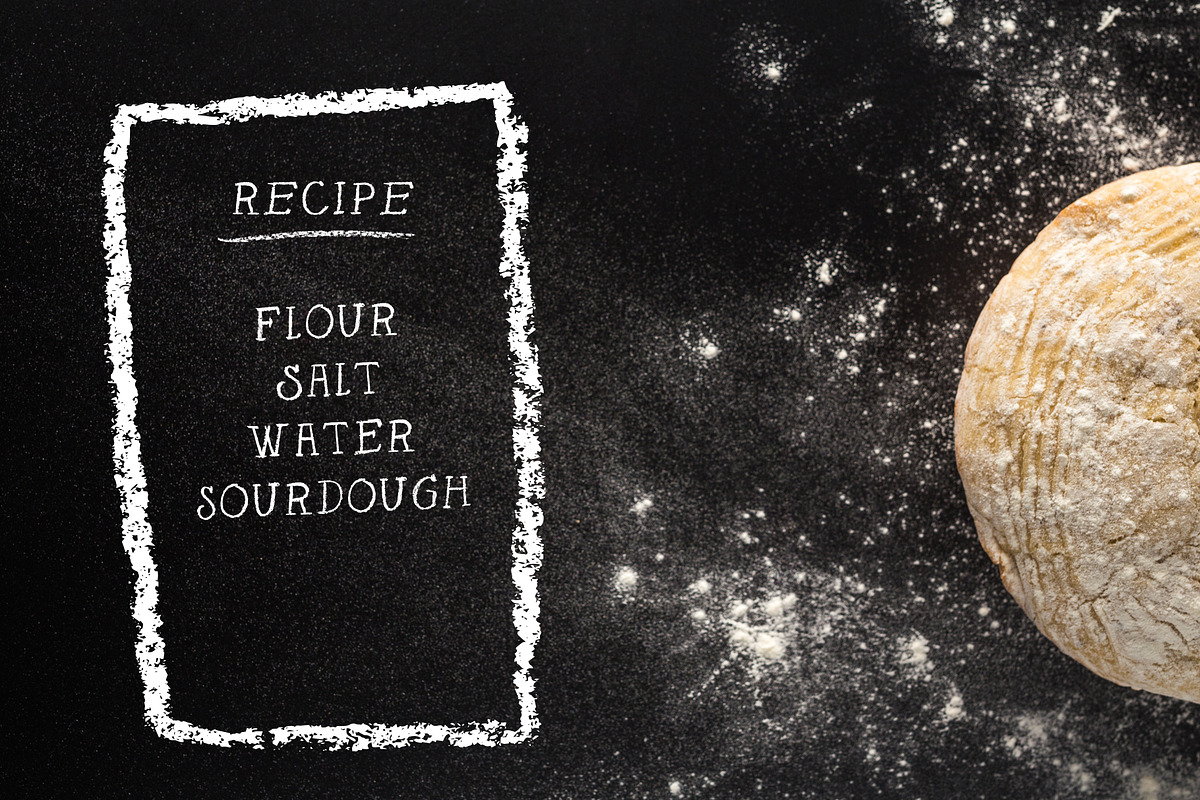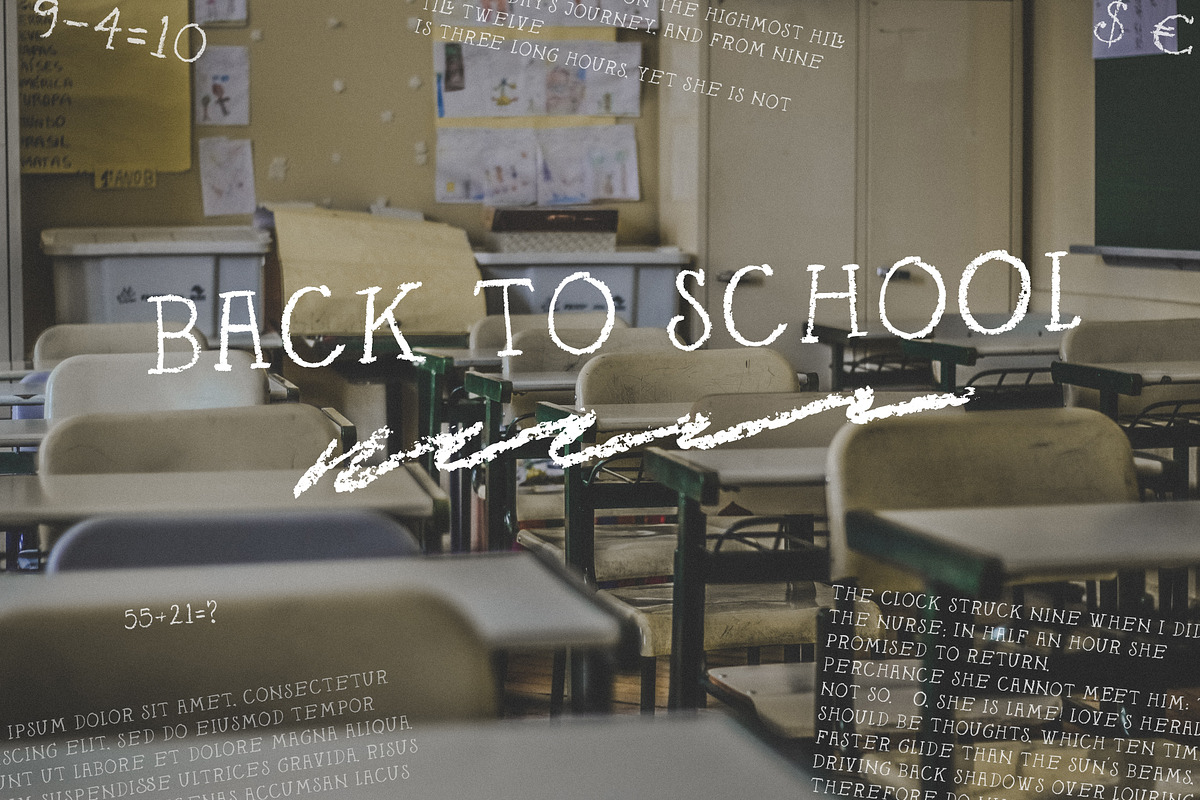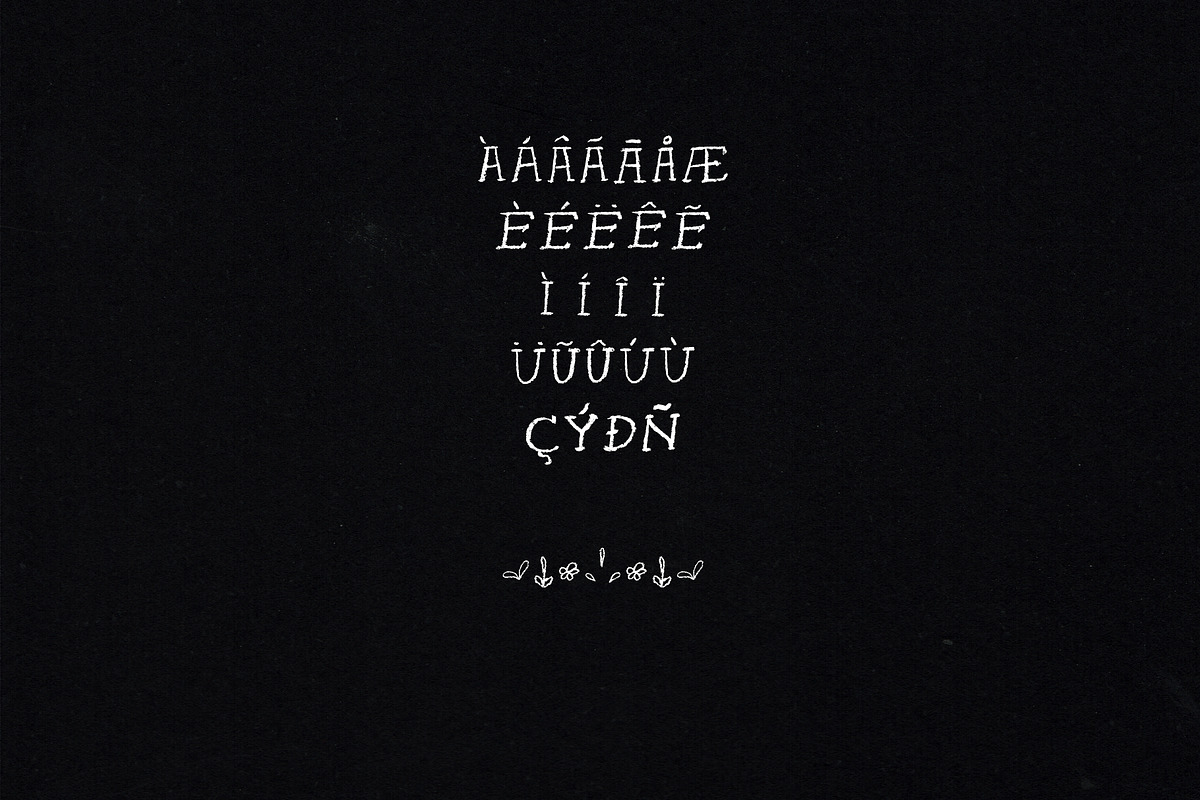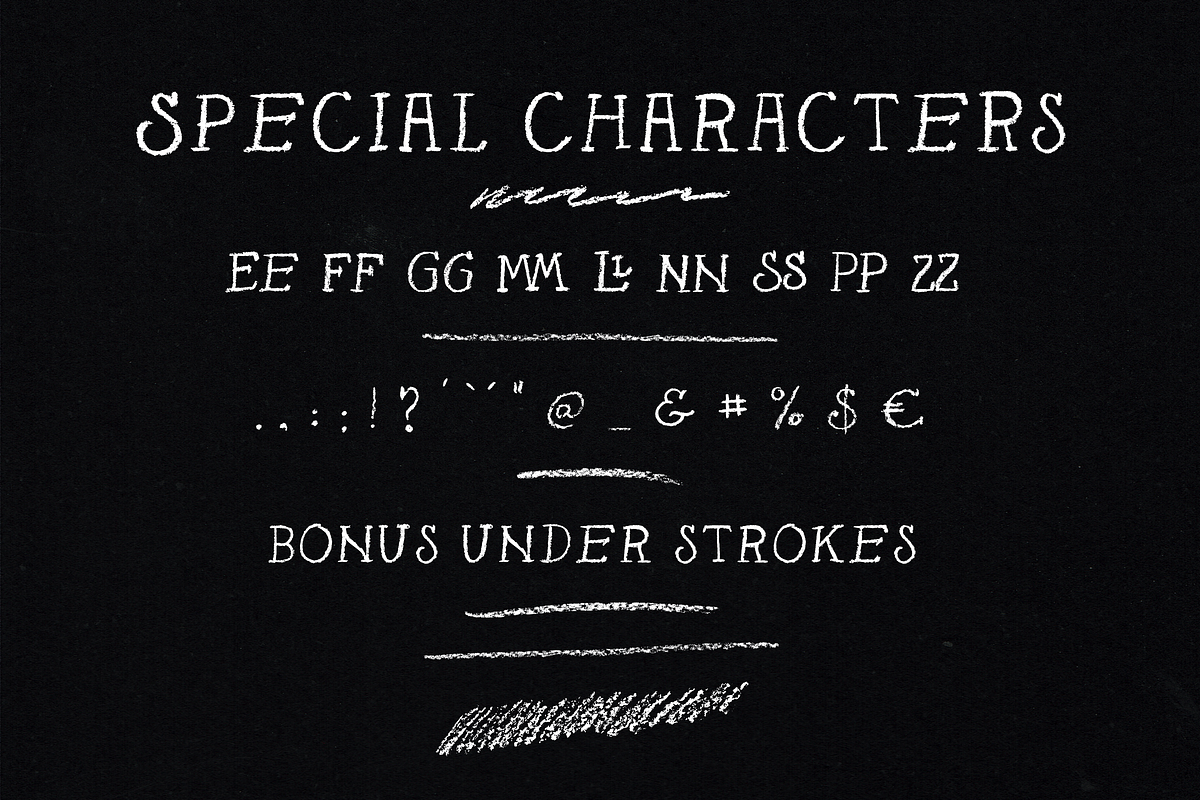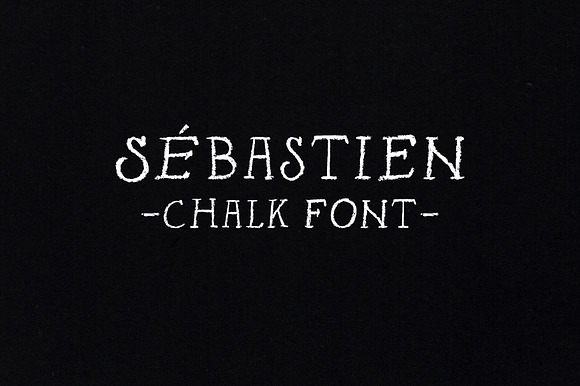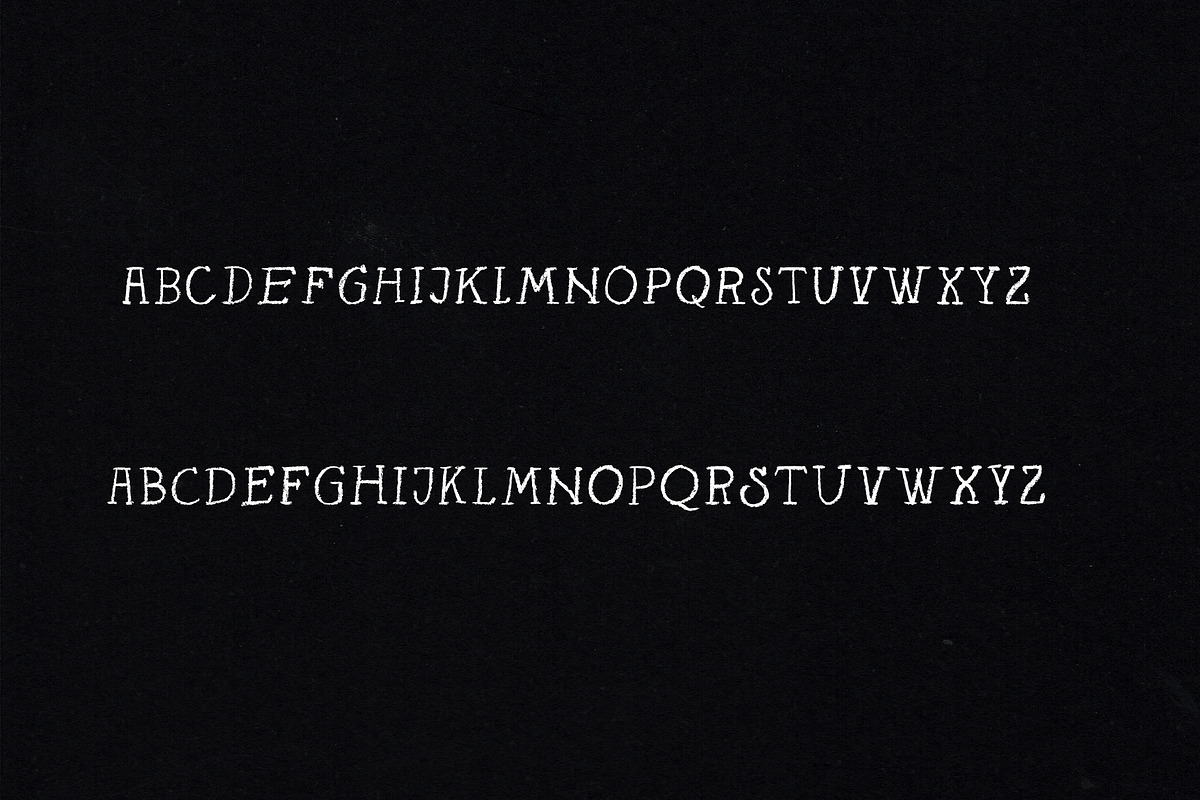
Sebastien chalk font
Sébastien (seb2) - A chalk hand-drawn font
Sébastien is a hand drawn font that features two sets of uppercases, numbers, punctuation and a set of special characters for international language support.
The design was first made for a bakery where we wanted that hand made old school feeling, with nice little clack tags and blackboards. To get a handmade feeling there is several ligatures and two sets of every letter, just hit shift or caps look to change a letter.
Sébastien chalk font is perfect for the tags, blackboards, display and labels.
You'll also get some extra under strokes and shapes.